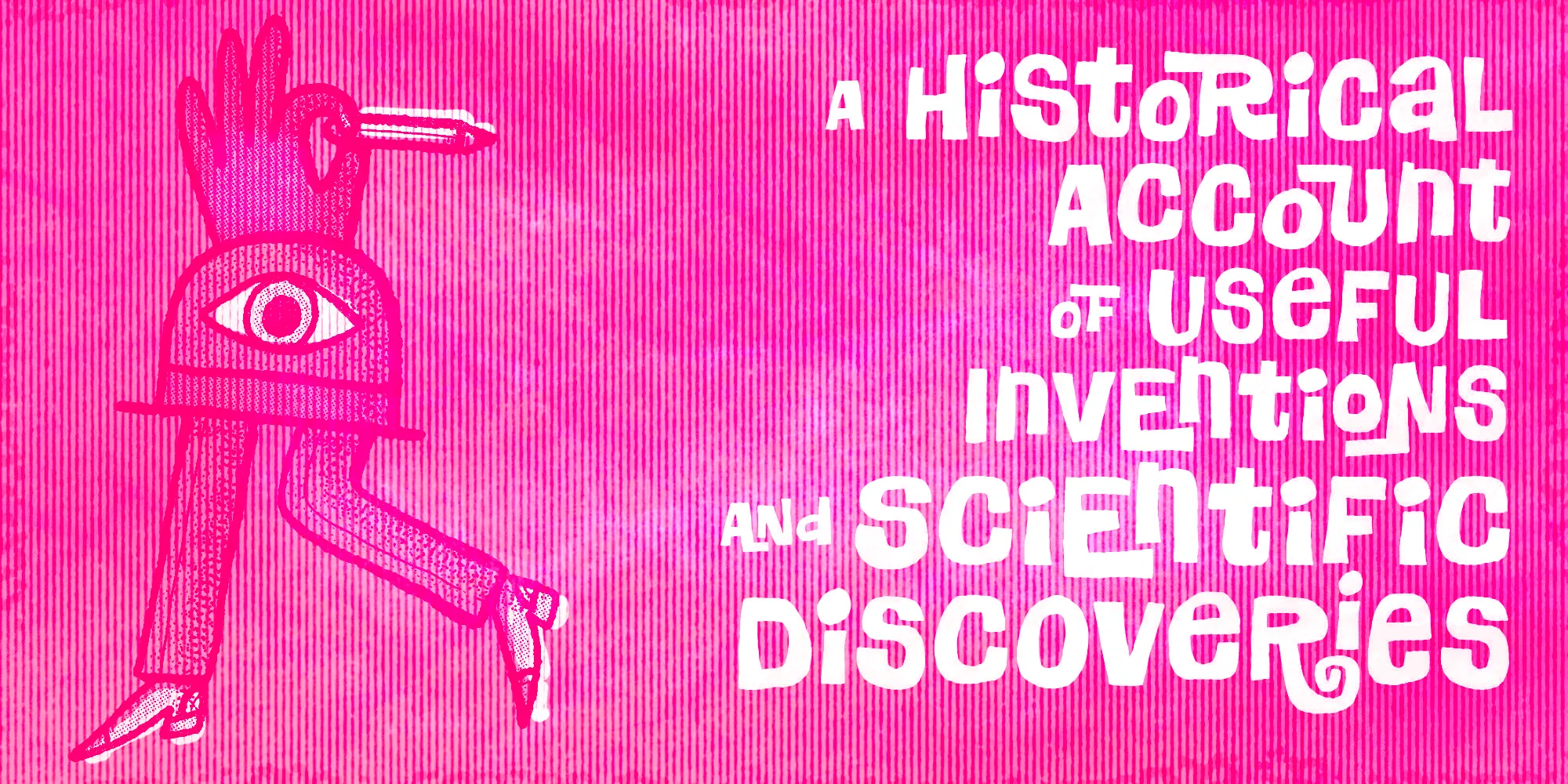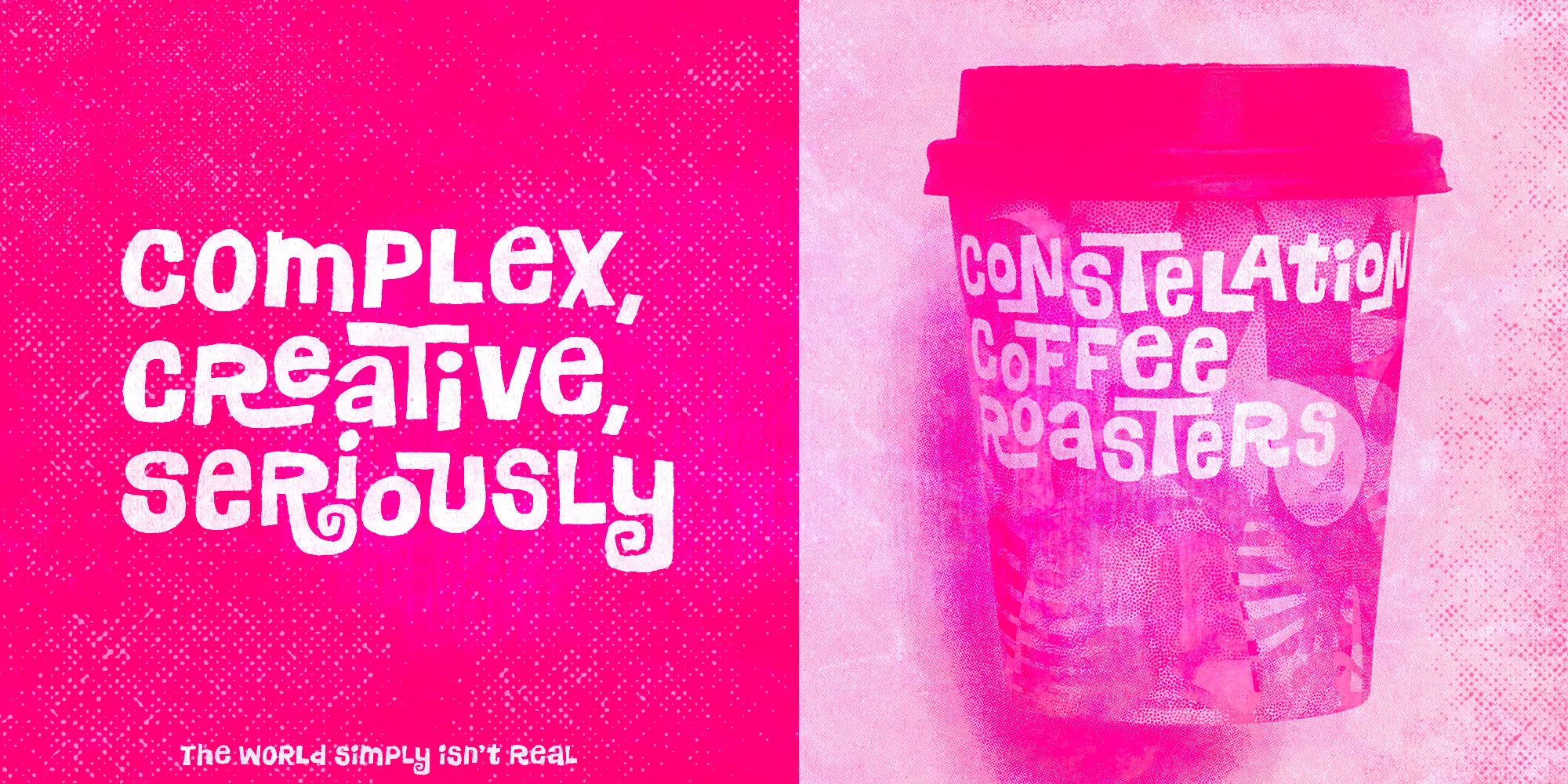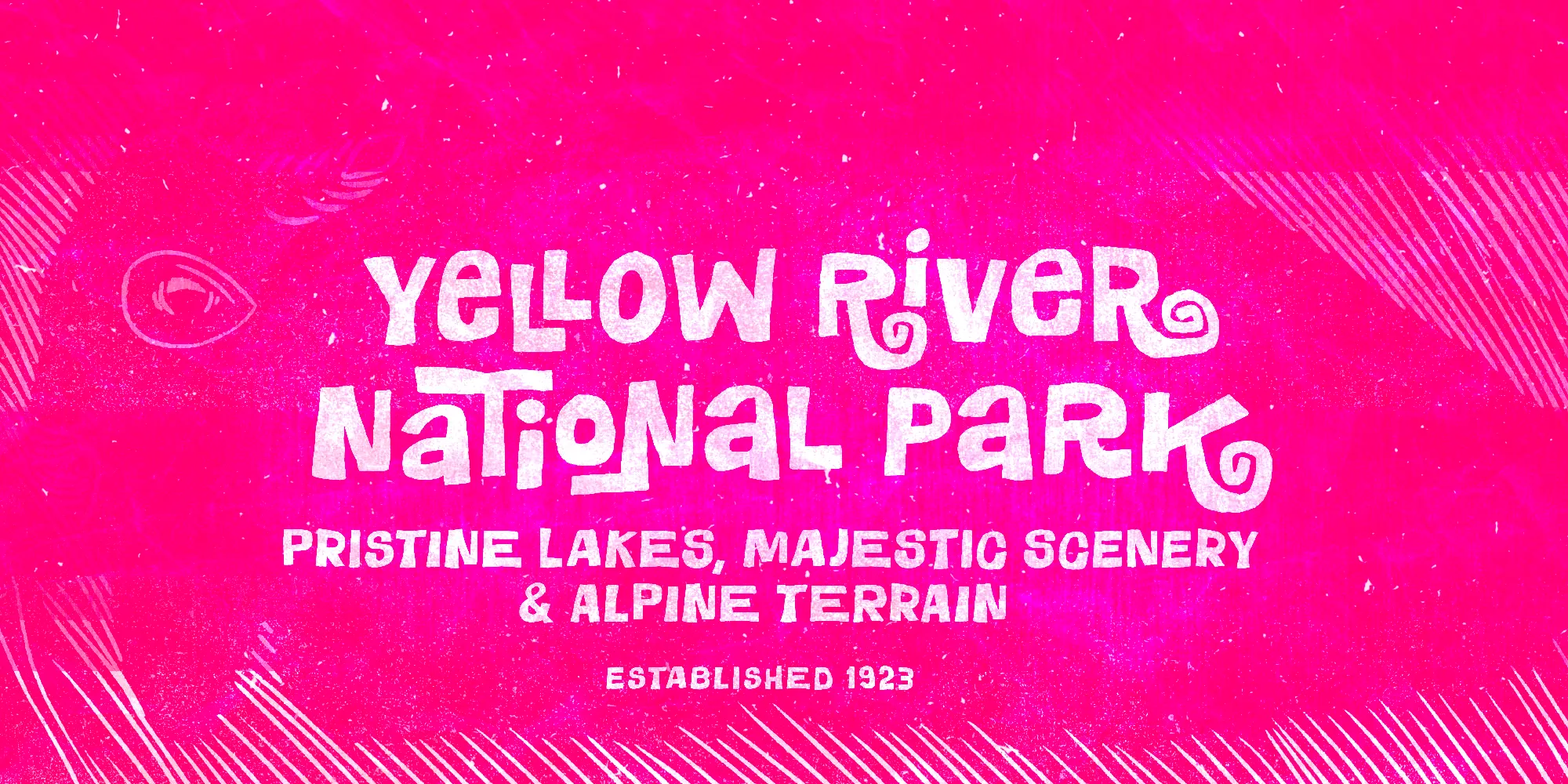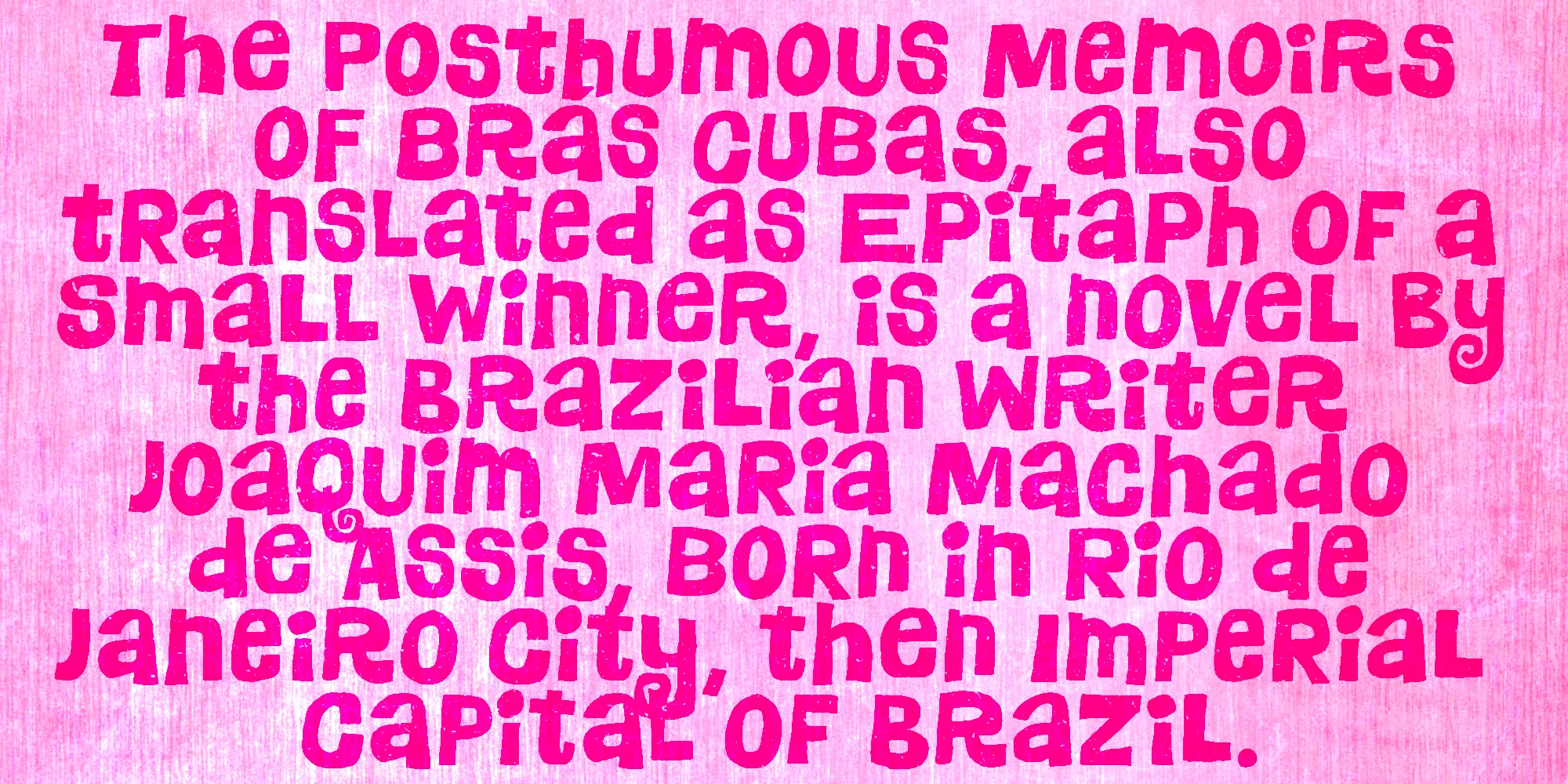
Phantaztik
Phantaztik is a bold and groovy display font packed with stylish interlocks and uncommon alternates. Despite its quirky nature, thanks to strong contrast and clear glyph separation it is usable in a large range of sizes. The exaggerated, whimsical forms make it especially eye-catching typography and graphic design. Full of cheer and optimism, it’s a fantastic option for packaging projects, book covers, game titles, apparel, and many more creative applications. Feel-good designs just got easier.
- Discretionary Ligatures
- Fractions
- Ordinal Numerals
- Stylistic Alternates
- Stylistic Sets
- Superscript